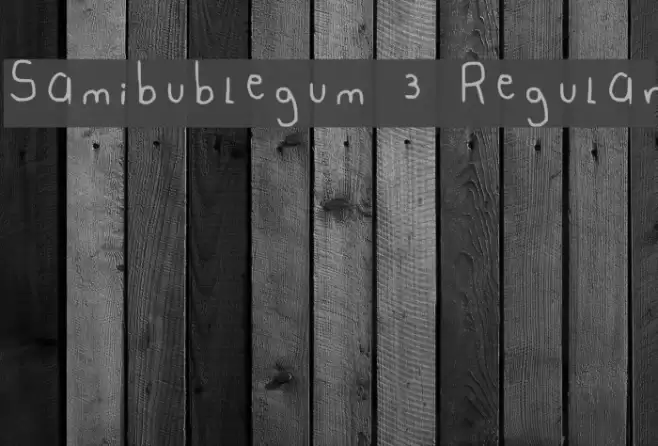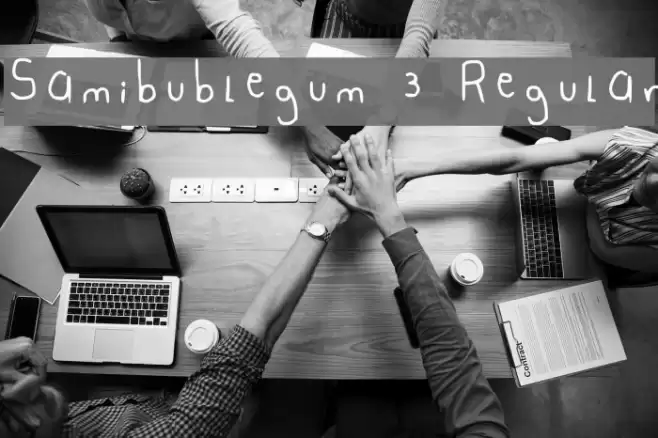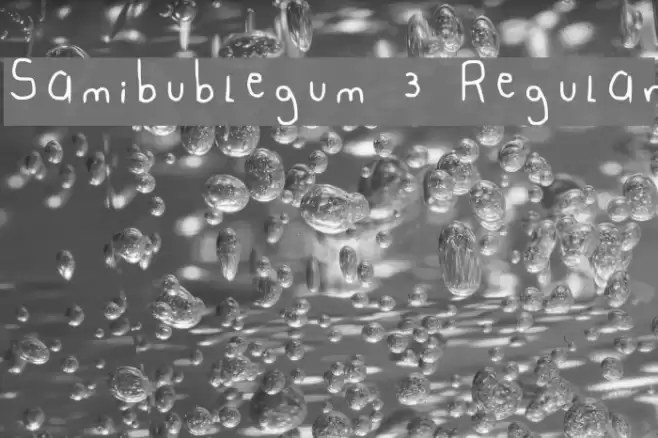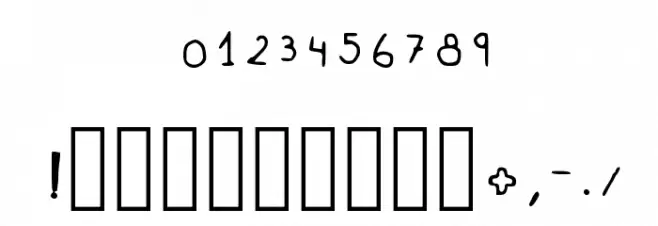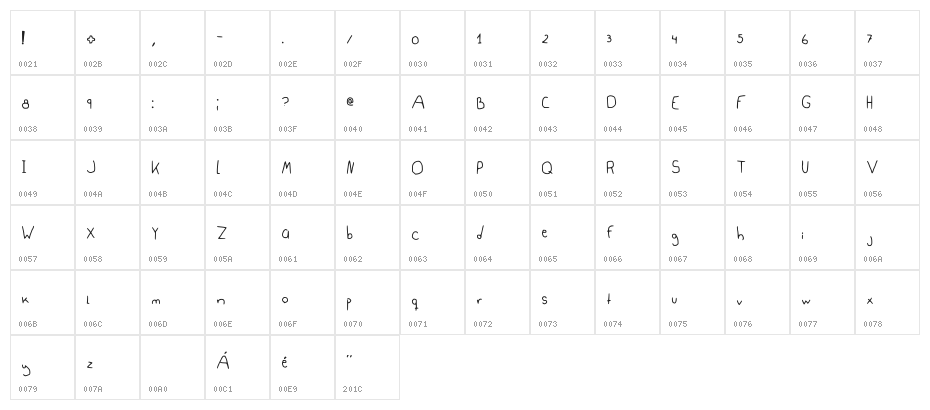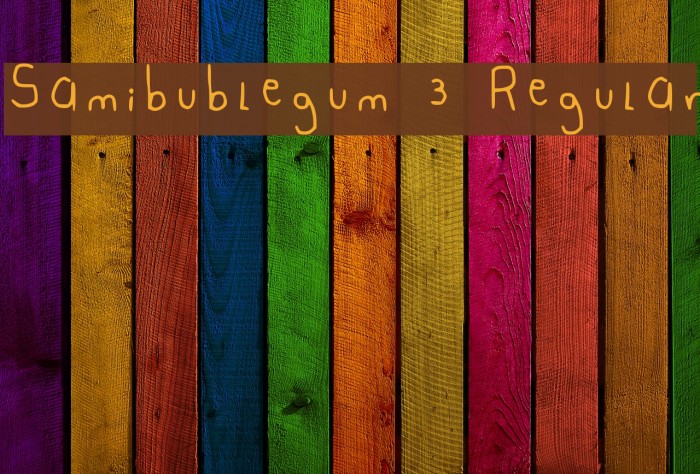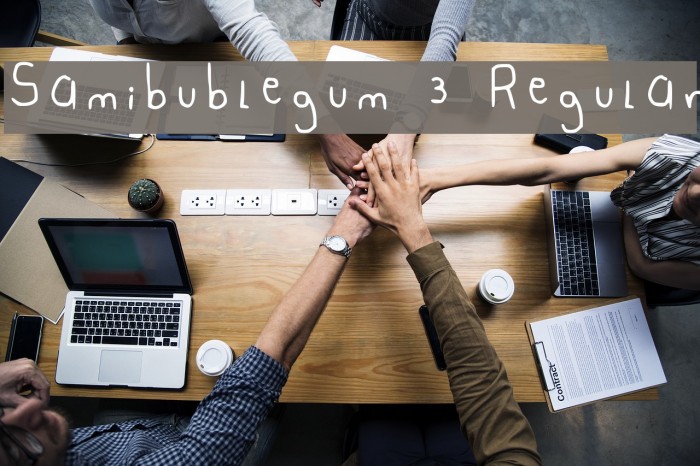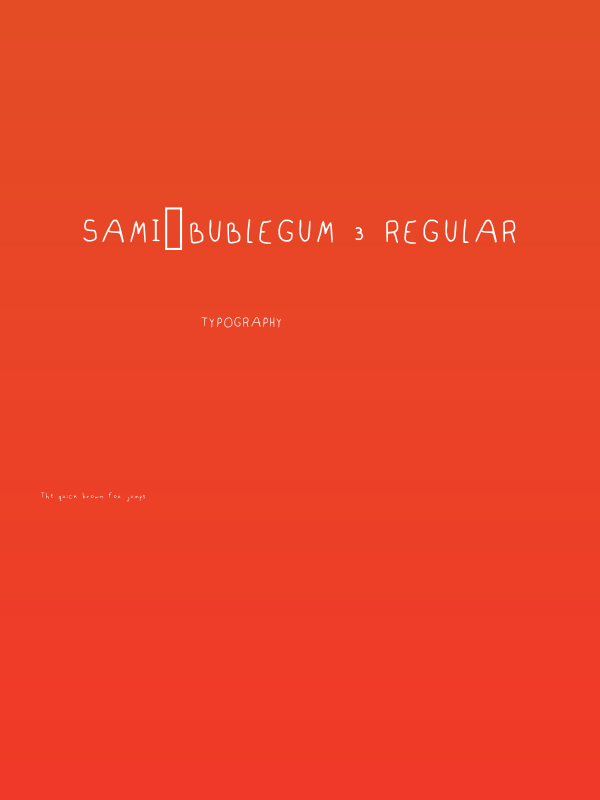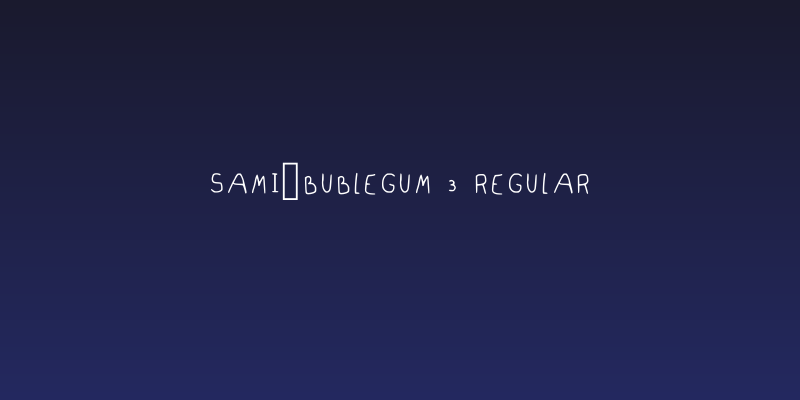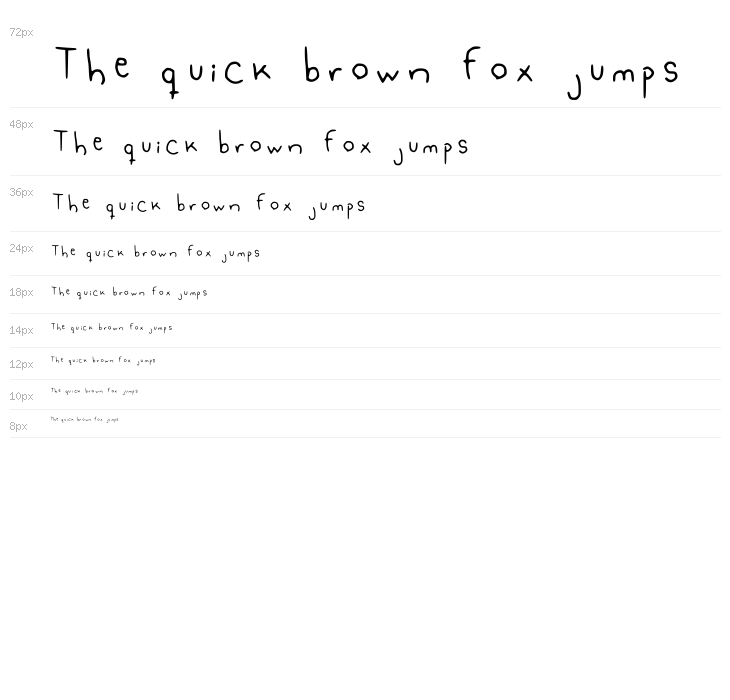
Sami_bublegum 3 Regular Font
Sami_bublegum 3 Regular Description
This playful and whimsical font features a handwritten style with a casual and friendly appearance. The letters are slightly irregular, adding a personal touch to the text. The uppercase and lowercase characters maintain a consistent style, with rounded edges and a smooth flow. The numbers are clear and easy to read, matching the overall aesthetic of the font. Special characters are included, though some may not be fully represented. This font is ideal for projects that require a fun and approachable look, such as children's books, invitations, or casual branding.
A playful, handwritten font with a casual and friendly style from Handwritten fonts.
- Proposed Projects: Children's books, invitations, casual branding, greeting cards.
- Overall Style: Casual
- Use Case: Headlines, Logos, Informal text.